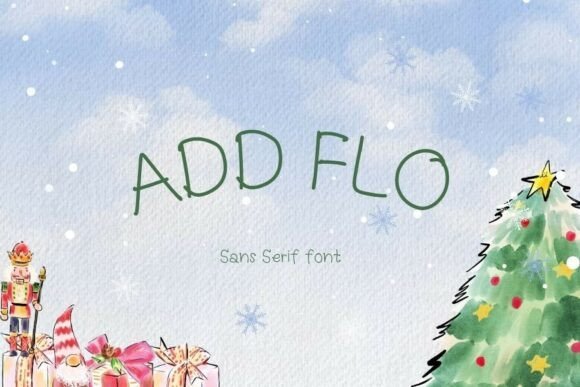
When Words Become Art
Have you ever stared at a blank page, waiting for the perfect font to spark your creativity? That’s exactly what happened to me last week, as I sat down to plan a friend’s surprise birthday party. I wanted the invitations to be something special, but I just couldn’t find the right font to capture the playful spirit of the occasion. It wasn’t until I stumbled upon Add Flo Font that everything fell into place.
Add Flo Font is a delightful, modern handwritten font that’s designed to add a touch of whimsy to any project. Whether you’re creating a diary planner, a wedding invitation, or a simple thank you card, this font is sure to bring a smile to your face. As a designer, you’ll appreciate the versatility of Add Flo Font, which can be used for a wide range of applications, from logos and posters to blogs and bags.
Add Flo Font Key Features
- Unique Characteristics: Add Flo Font features a unique, handwritten style with a mix of cursive and script elements, making it ideal for creative and artistic projects.
- Font Family: Add Flo Font is part of a larger font family, offering a range of weights and styles to suit different design needs.
Add Flo Font Review
I recently had the chance to work with the Add Flo Font, and I have to say it’s a great addition to any designer’s toolkit. ✨ One of the things that stands out is its unique and playful style, which makes it perfect for projects that require a touch of whimsy. ✨ The font is also highly customizable, allowing you to adjust the size, color, and spacing to suit your needs.
Here are some of the key features that make Add Flo Font shine:
- Unique and playful style
- Works well for projects that require a touch of whimsy
However, there are a few limitations to keep in mind. ⚠️ The font may not be suitable for projects that require a more formal or professional tone. Additionally, the font may not be as legible at very small sizes, which can make it difficult to read.
Overall, I would say that Add Flo Font is a great choice for designers who want to add a bit of personality to their projects. While it may not be the best choice for every project, it’s definitely worth considering for projects that require a unique and playful touch.
To get the most out of the Add Flo Font, consider the following tips:
- Use the font in combination with other modern fonts to create a cohesive and stylish design.
- Experiment with different font sizes and styles to add visual interest to your design.
- Use the font in headings and titles to create a clear and attention-grabbing hierarchy.